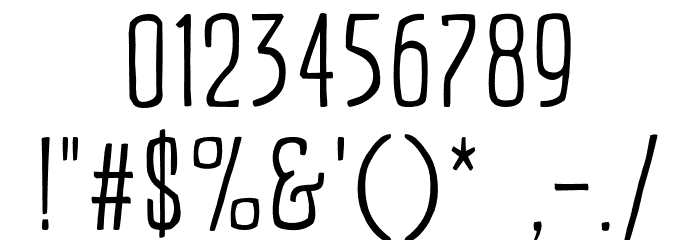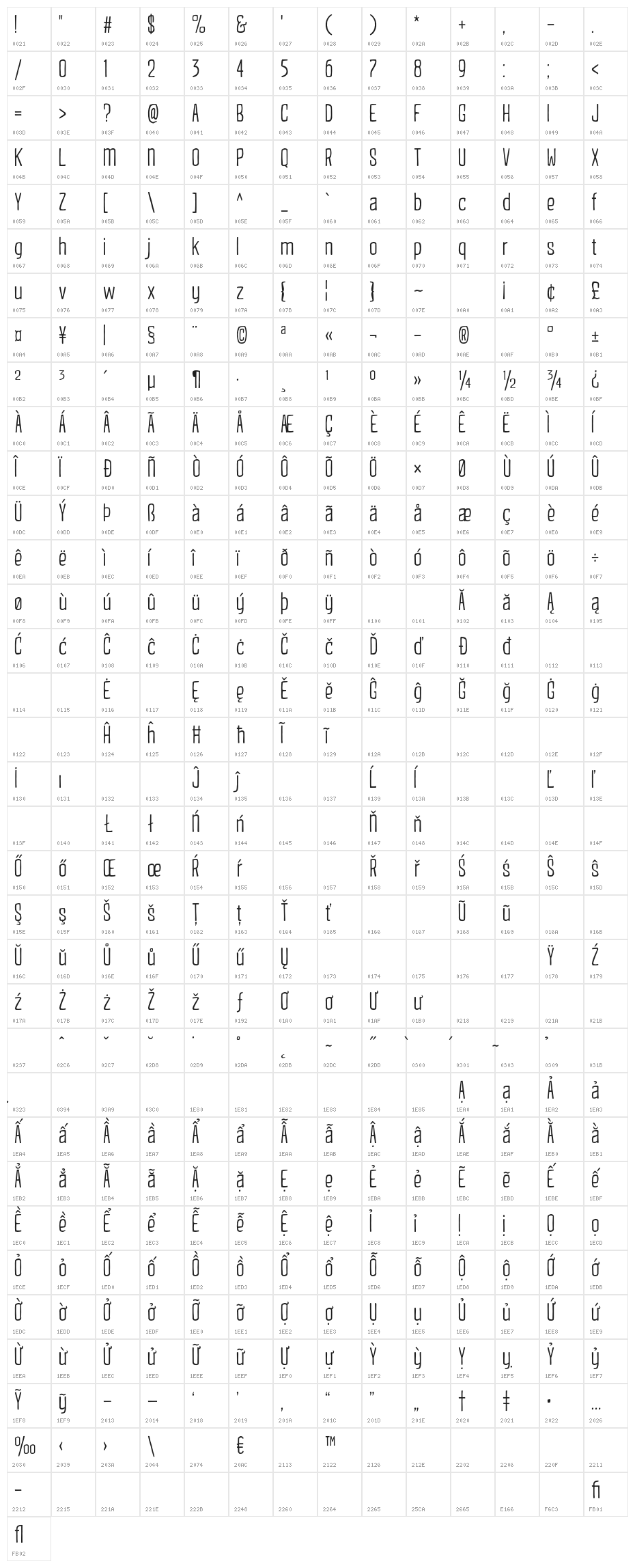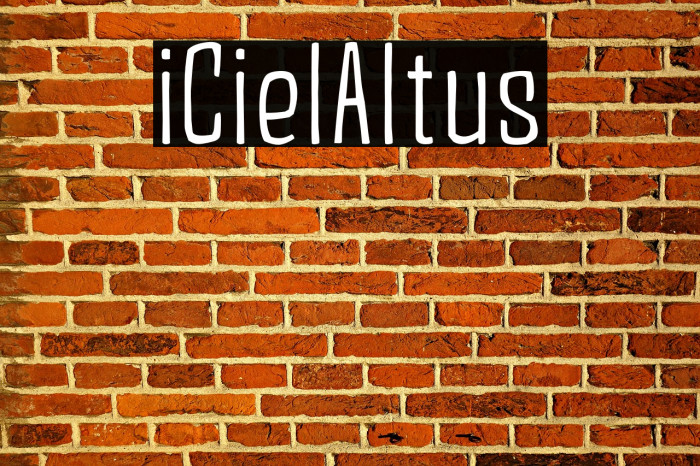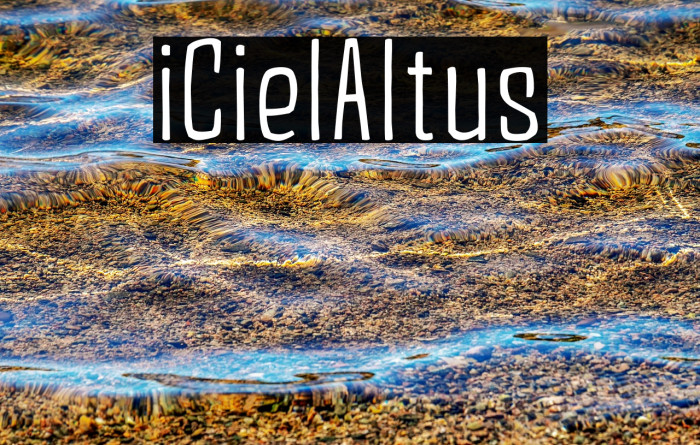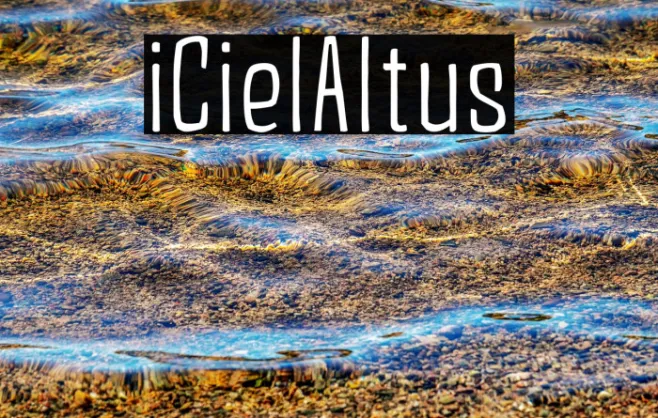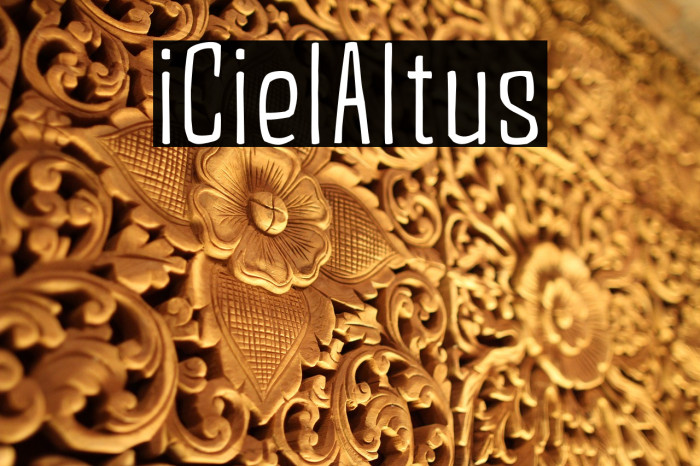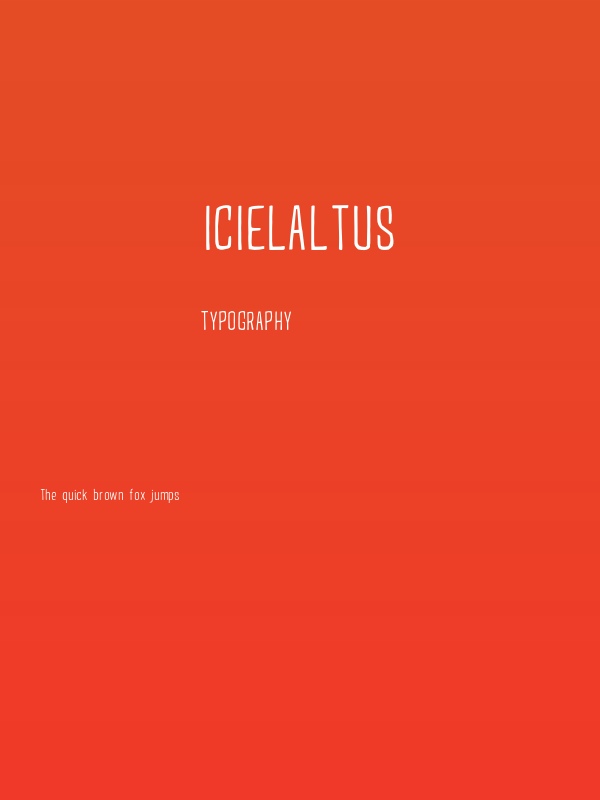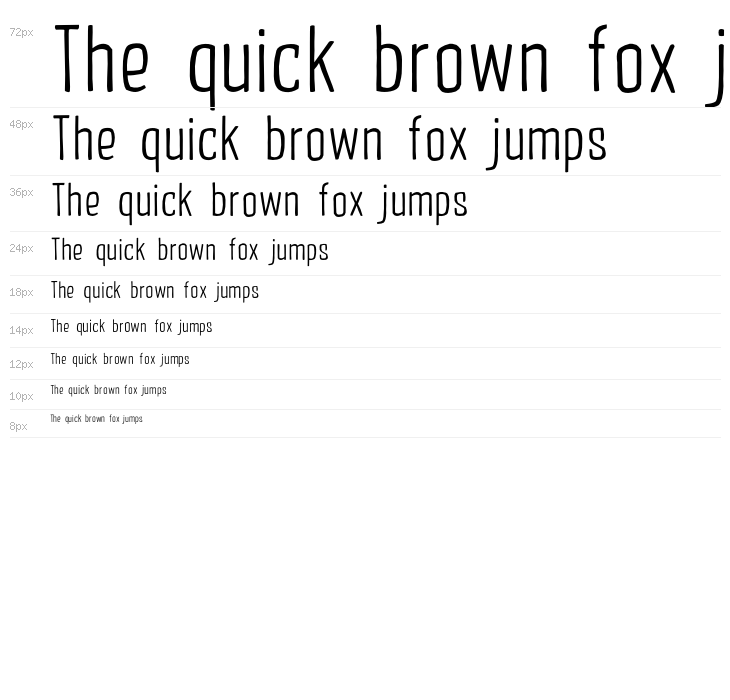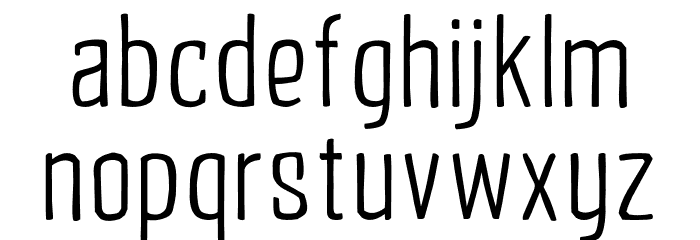
iCielAltus Font
iCielAltus Description
This font features a unique and modern design with elongated, narrow characters that give it a distinct appearance. The uppercase letters are tall and slightly condensed, while the lowercase letters maintain a consistent height, creating a harmonious balance. The numbers are clear and legible, with a uniform width that complements the overall style. Special characters are designed with the same attention to detail, ensuring they integrate seamlessly with the rest of the font. The strokes are consistent in thickness, providing a clean and polished look. This font is versatile, suitable for various design projects that require a contemporary and stylish touch.